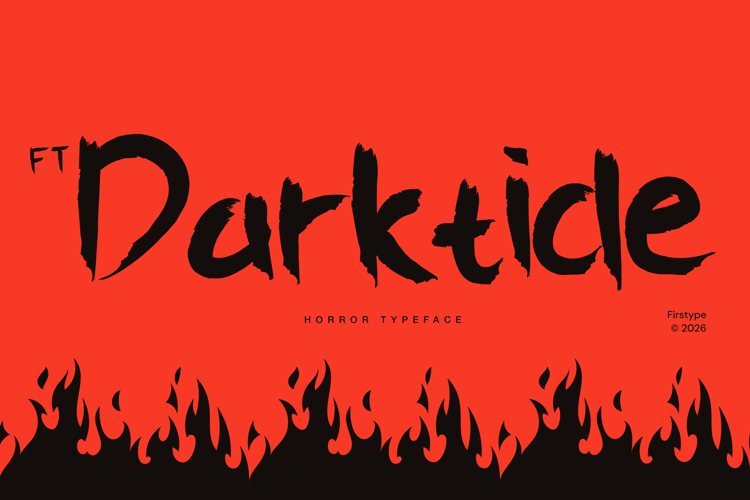
FT Darktide Font
Embrace the fear with FT Darktide.
FT Darktide is a grim, high-impact horror typeface designed with aggressive, slashed brush strokes. Capturing a spine-chilling, dark atmosphere, this font is built to give your Halloween designs, horror movie titles, and eerie posters an authentic, menacing edge.
As showcased in A.png, its jagged and unsettling look makes it the ultimate weapon for terrifying visual projects.